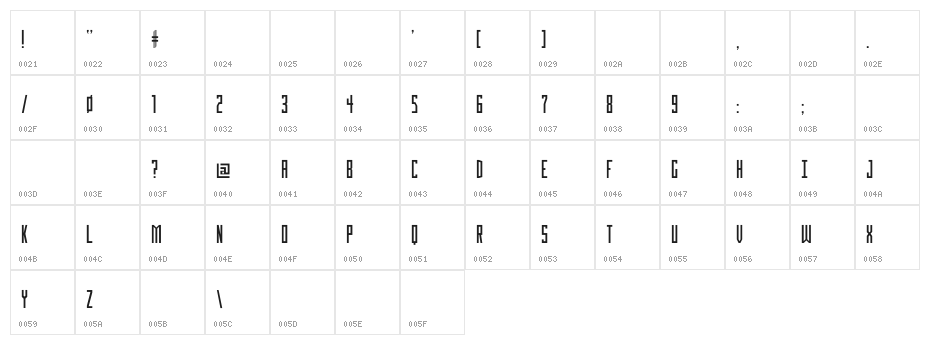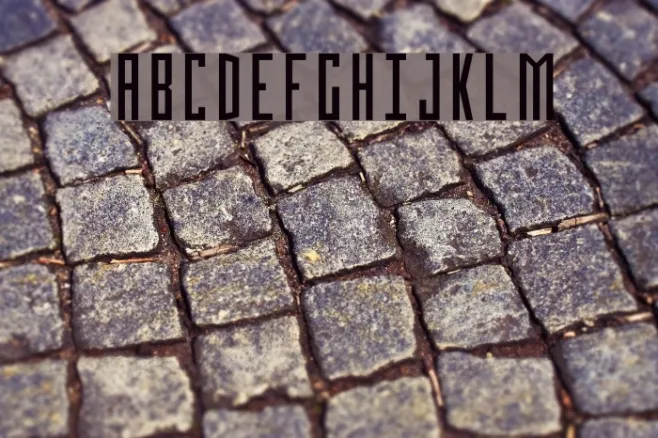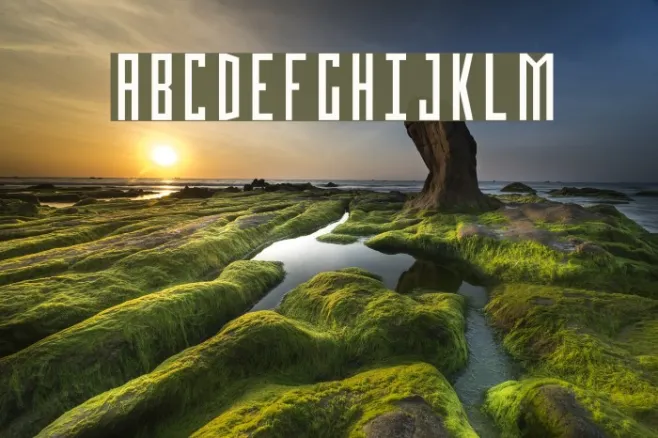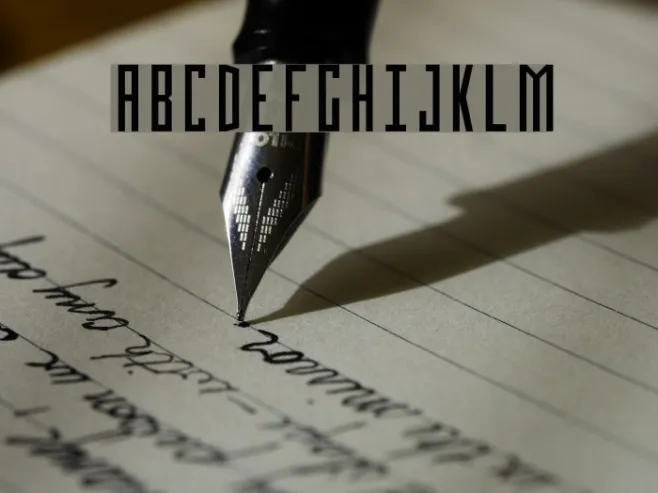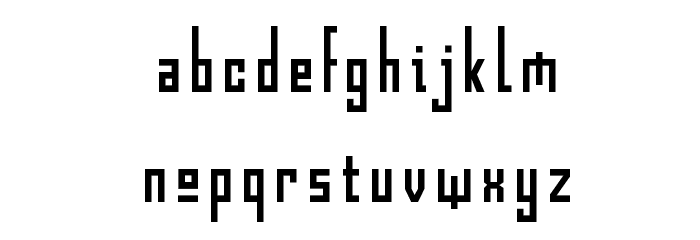
Gothik#107 Font
Gothik#107 Description
This font features a bold, geometric design with a modern and slightly futuristic aesthetic. The characters are tall and narrow, with sharp angles and clean lines that give it a distinctive, edgy look. The uppercase and lowercase letters maintain a consistent height, contributing to a uniform appearance. The numerals and special characters follow the same design principles, ensuring a cohesive style throughout. The font's structure is reminiscent of digital or pixelated text, making it suitable for tech-related projects or contemporary designs.
| Proposed Projects | Ideal for tech branding, video game interfaces, modern posters, and digital media. |